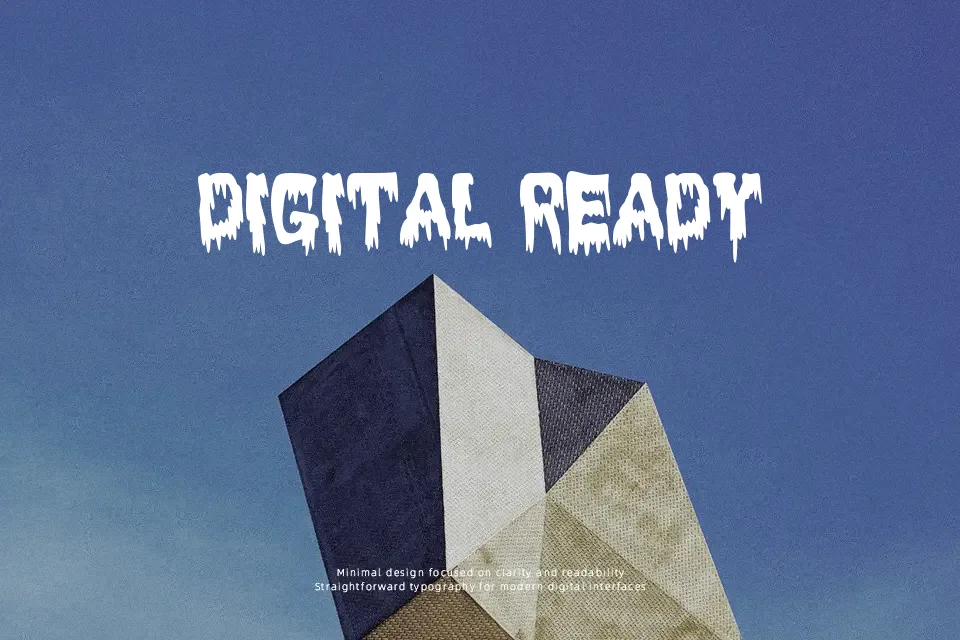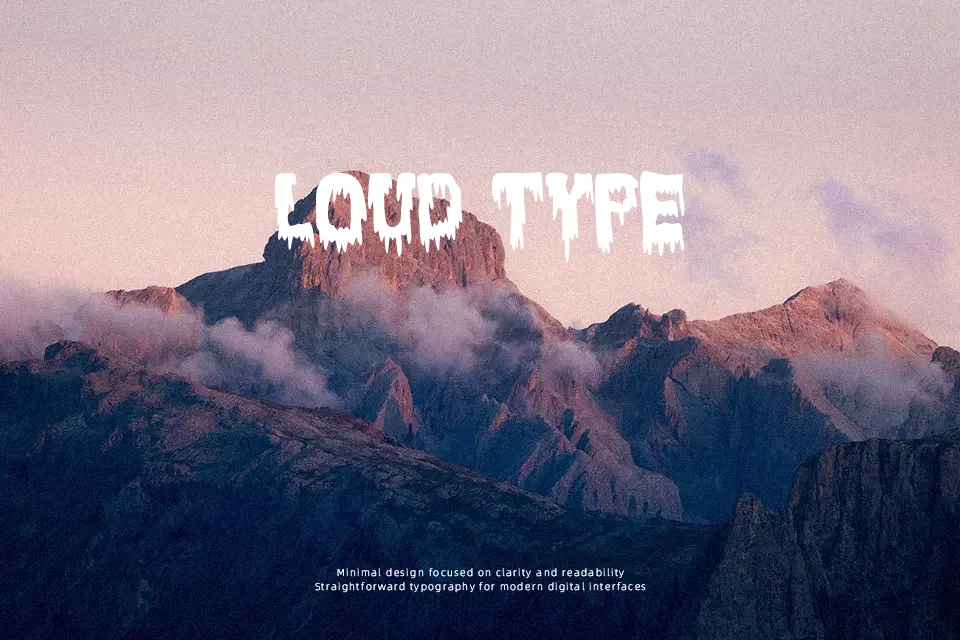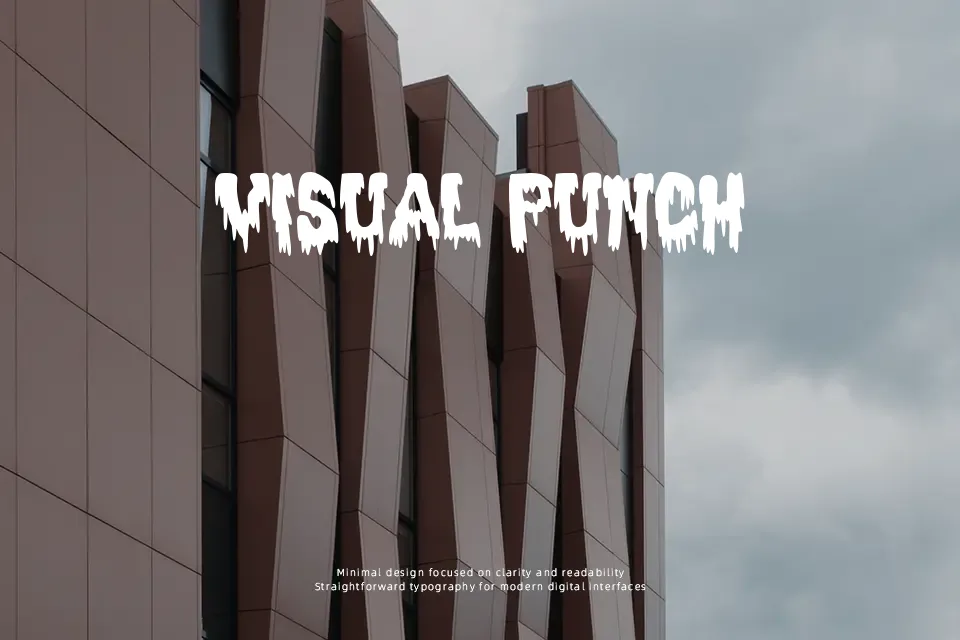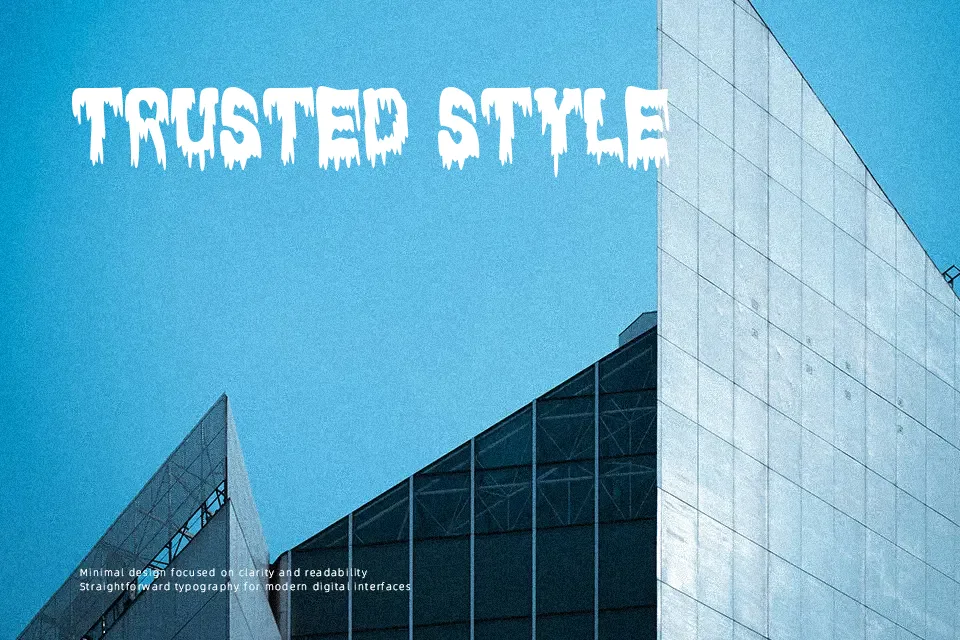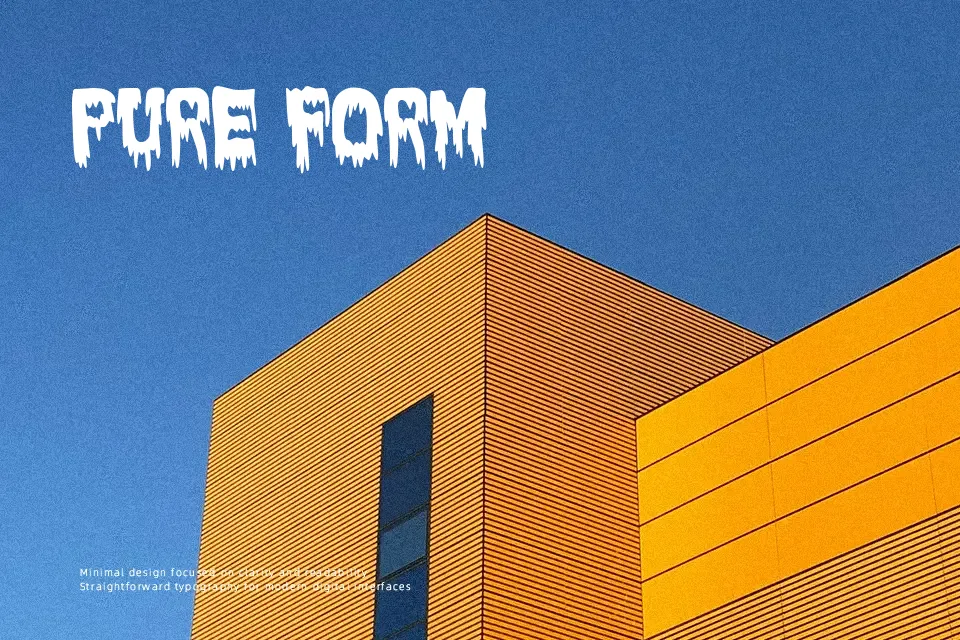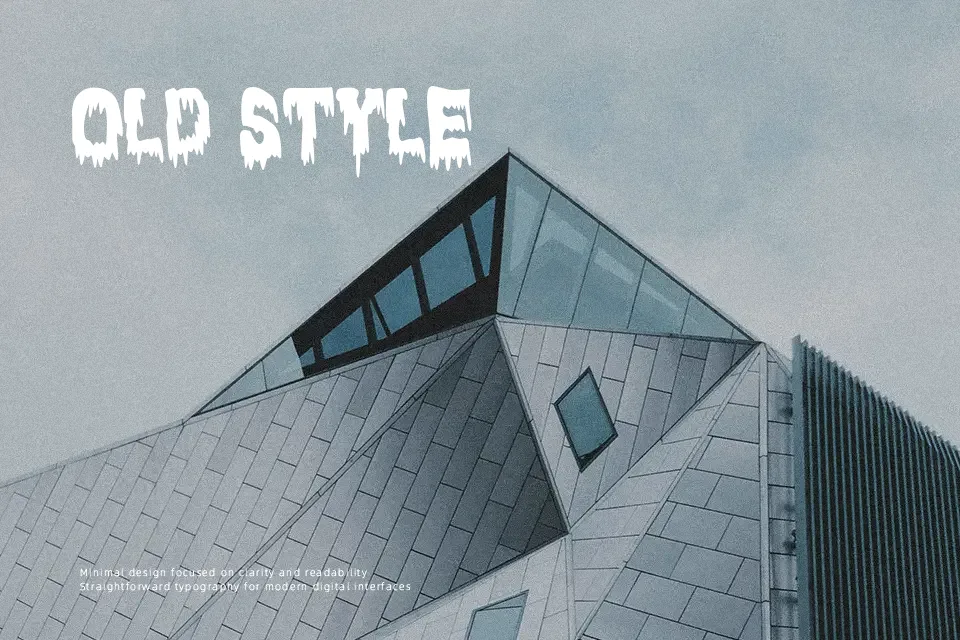
All Of Us Will Die Font
All Of Us Will Die is a rough horror display typeface built from thick, uneven strokes with distressed edges and a dripping texture that makes each letter feel unstable and sinister. Tight spacing and heavy forms push words into dense blocks, amplifying impact at large sizes while keeping legibility good enough for short headlines and logos. It works well for horror movie posters, metal band artwork, Halloween event branding, game covers, and any graphic that needs a raw, aggressive look. However, its extreme texture and irregular shapes quickly become tiring in small text or long copy, and it can clash with minimal or corporate layouts. Use it as an accent or primary title font, then pair it with a calmer sans serif or serif to keep the overall design readable and balanced.
horror movie posters
halloween event flyers
metal or punk band artwork
game titles and keyart
formal corporate branding
small UI labels or buttons
clean minimalist layouts
Perfect for advertising, halloween, and headline, with a creative and decorative style.